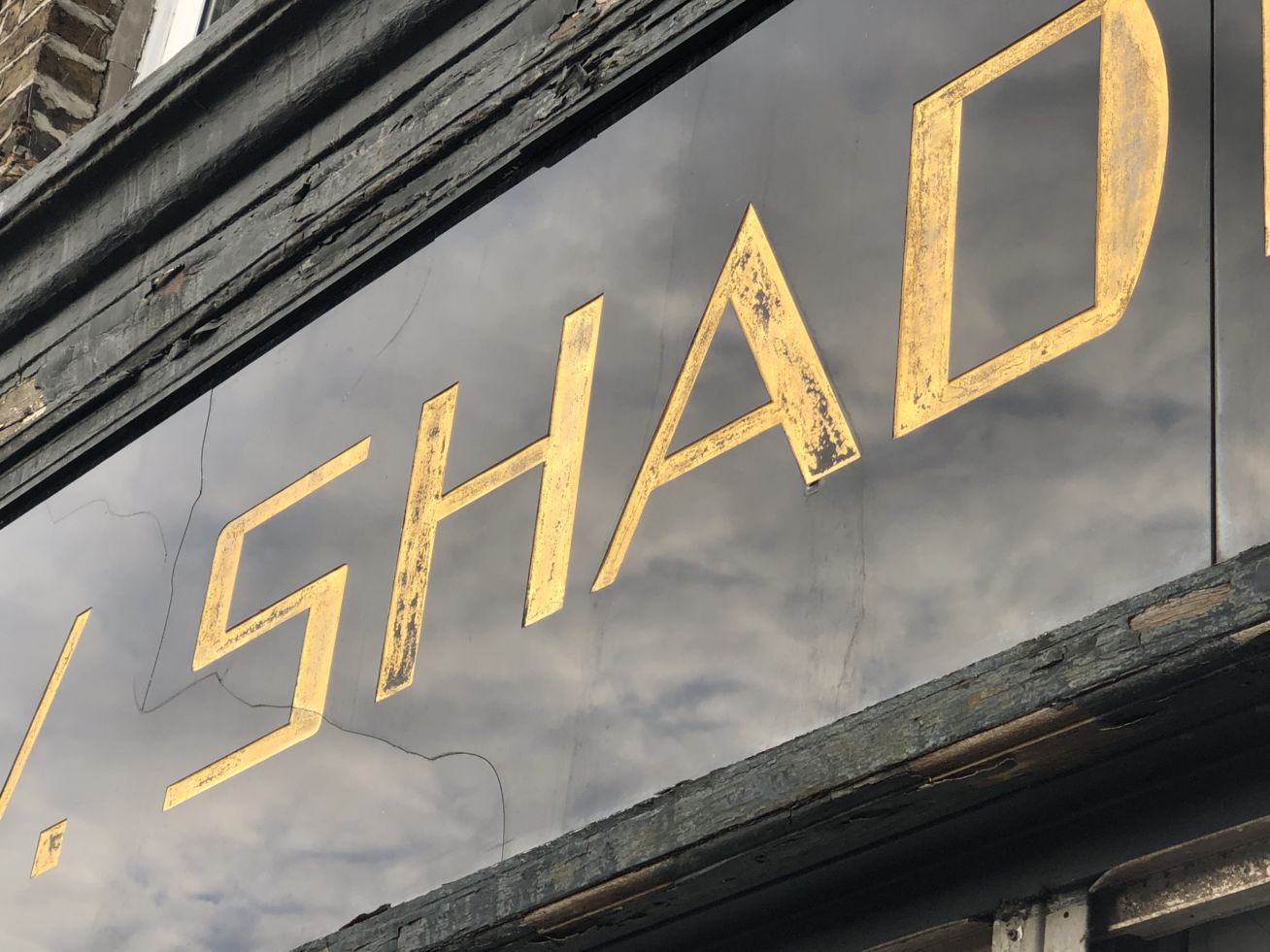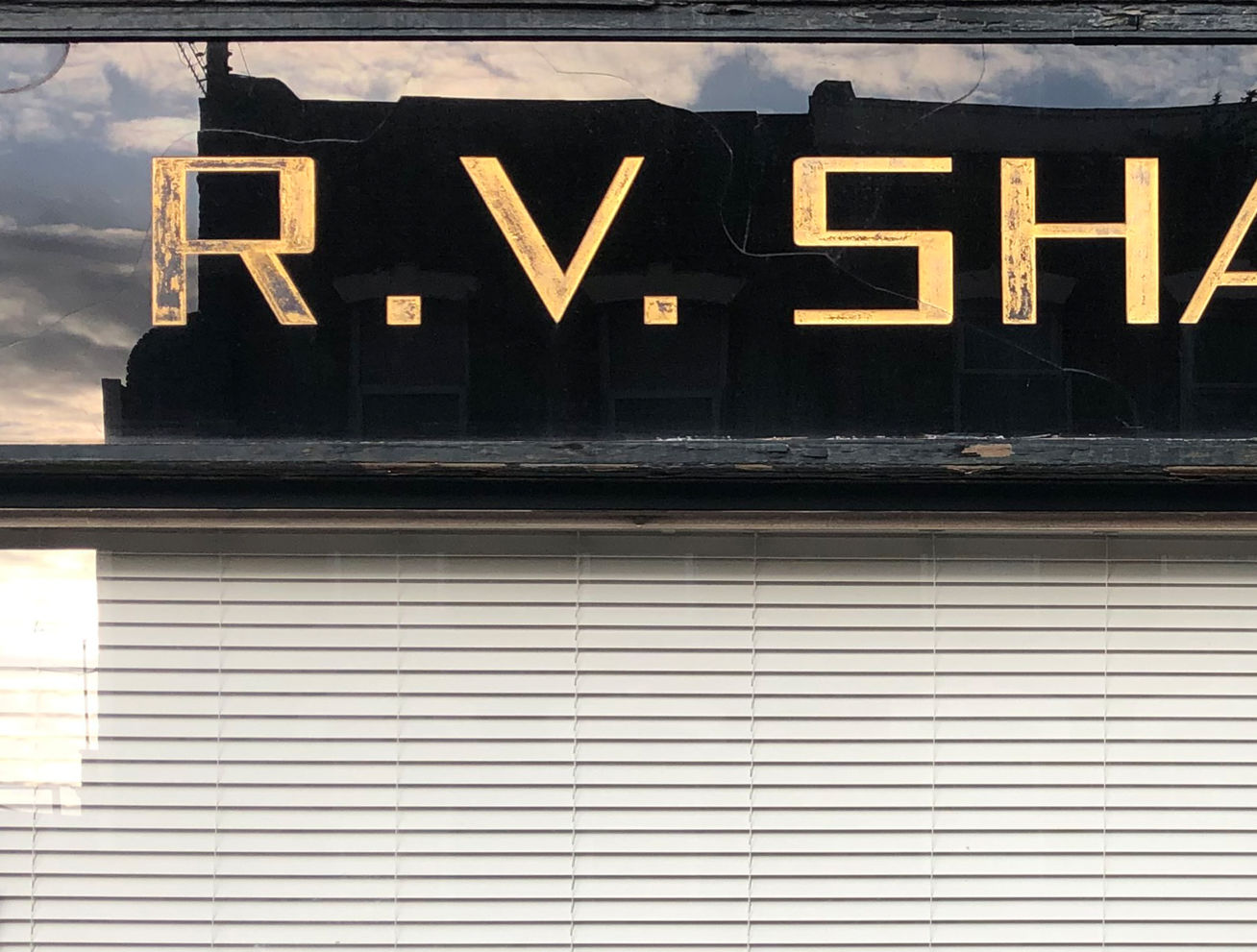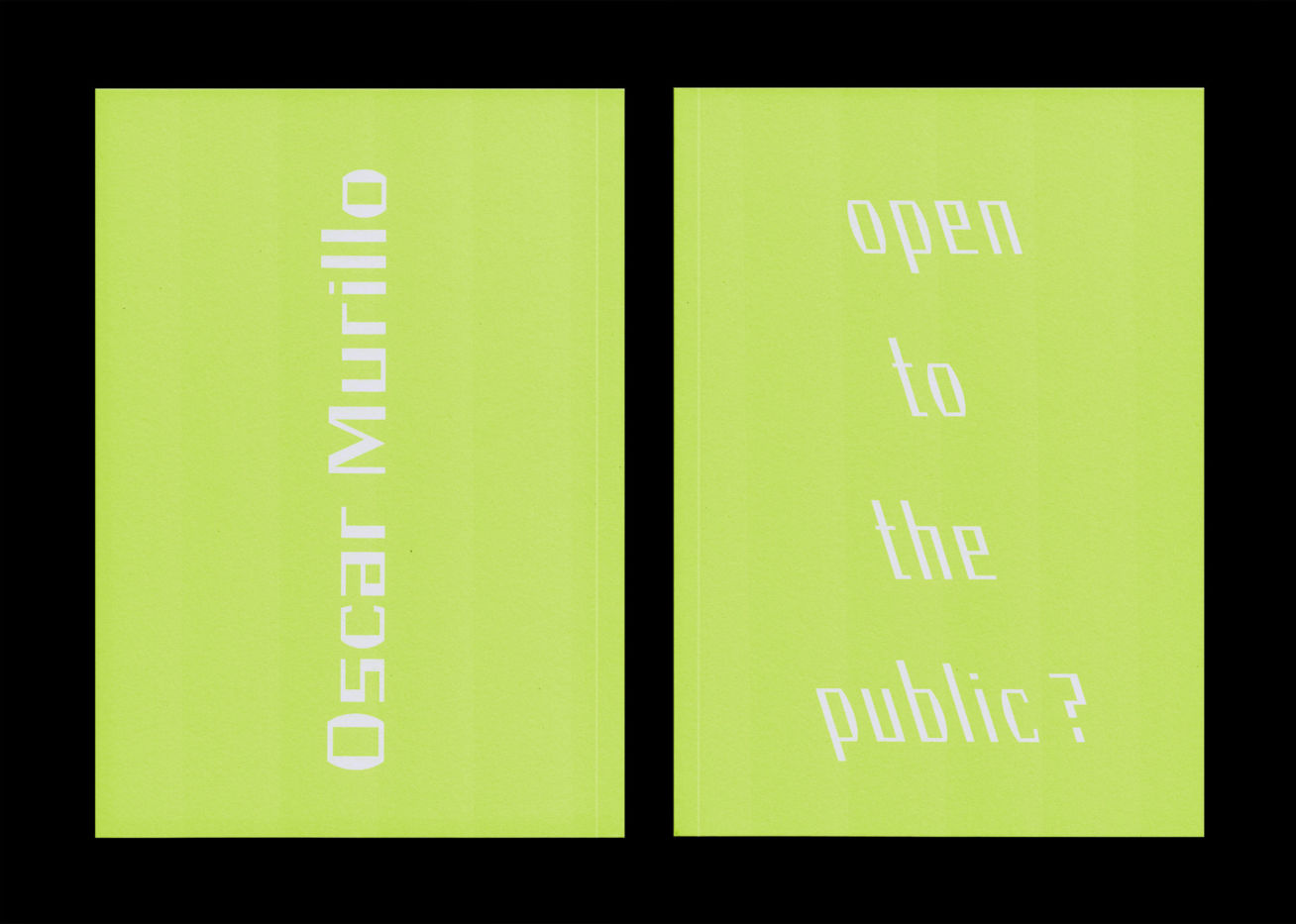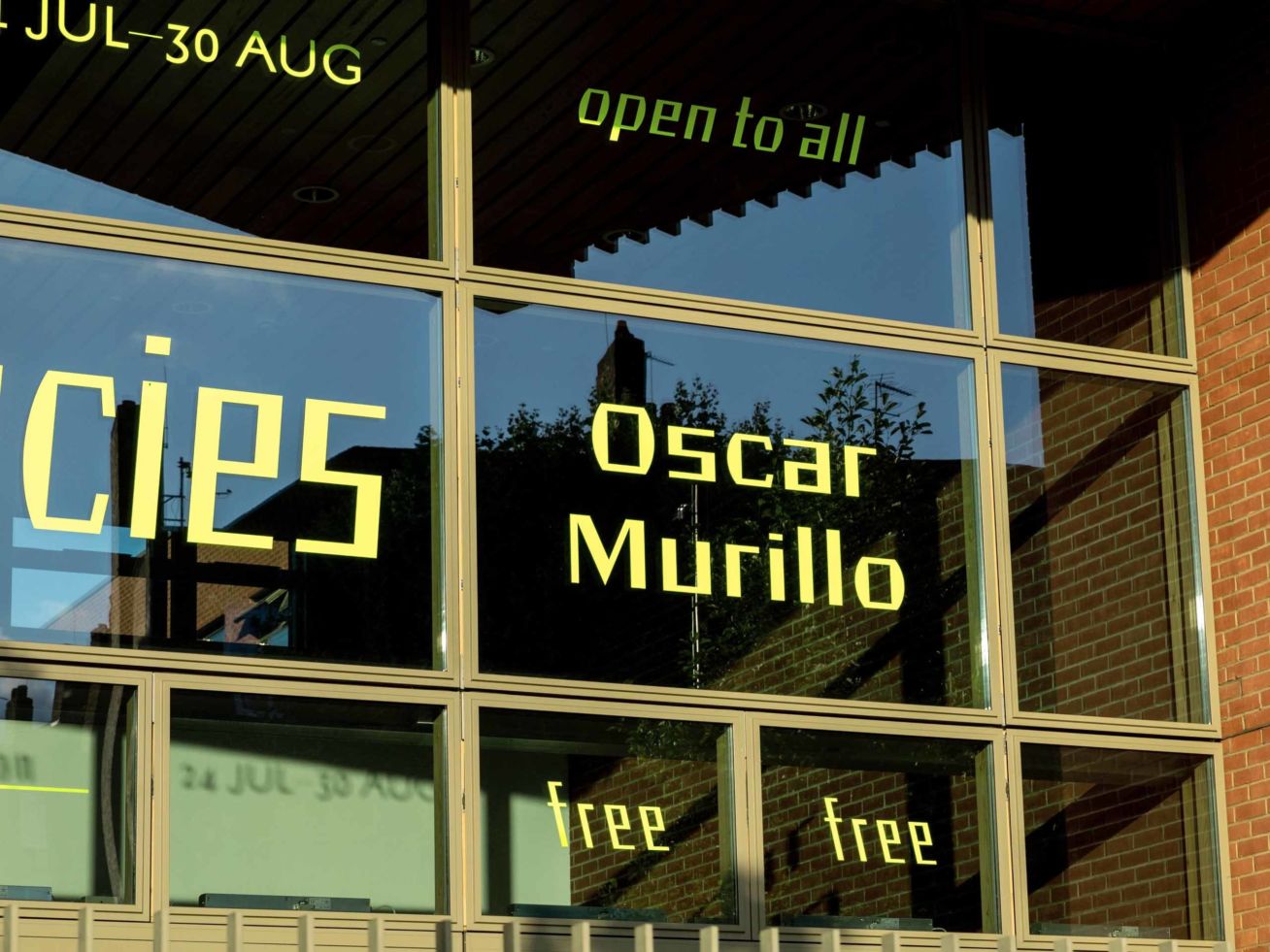
RV SHADDICK
RV SHADDICK is our revival of a beautiful piece of gold leafed vernacular shop sign lettering on black glass from East London – This precise Art Deco beauty married with a constructed and contemporary look, is now available as a full digital alphabet in 2 master upright widths (ONE + TWO) with no less than two accompanying Italic styles – A conventional 20° Italic and a backslanted -20° Italic also! (Reverse Italic). Although a novelty, backslanted Italics can be found in many historical specimen books (example: Figgins Seven Lines Pica, No. 2). RV SHADDICK (we kept the name shown on the original sign) is available in 6 pre-defined styles as well as a single Variable Font, giving you the control. Be advised that not all applications support Variable Fonts. Please email us if you need this specific font format.
Detail of original shop sign. Photo © A2-TYPE
Font in use by Polytechnic (Frequencies - Oscar Murillo - Artangel). Photo: Thomas Adank
Font in use by Polytechnic (Frequencies - Oscar Murillo - Artangel). Photo: Sam Bush